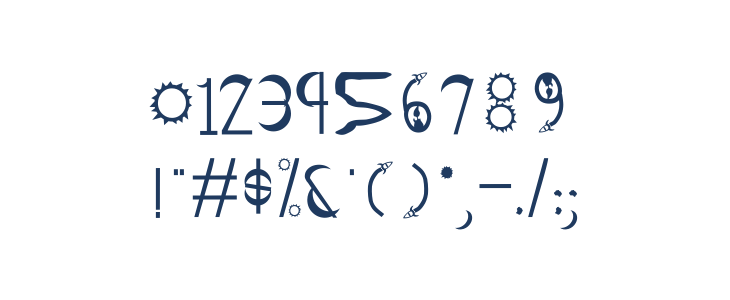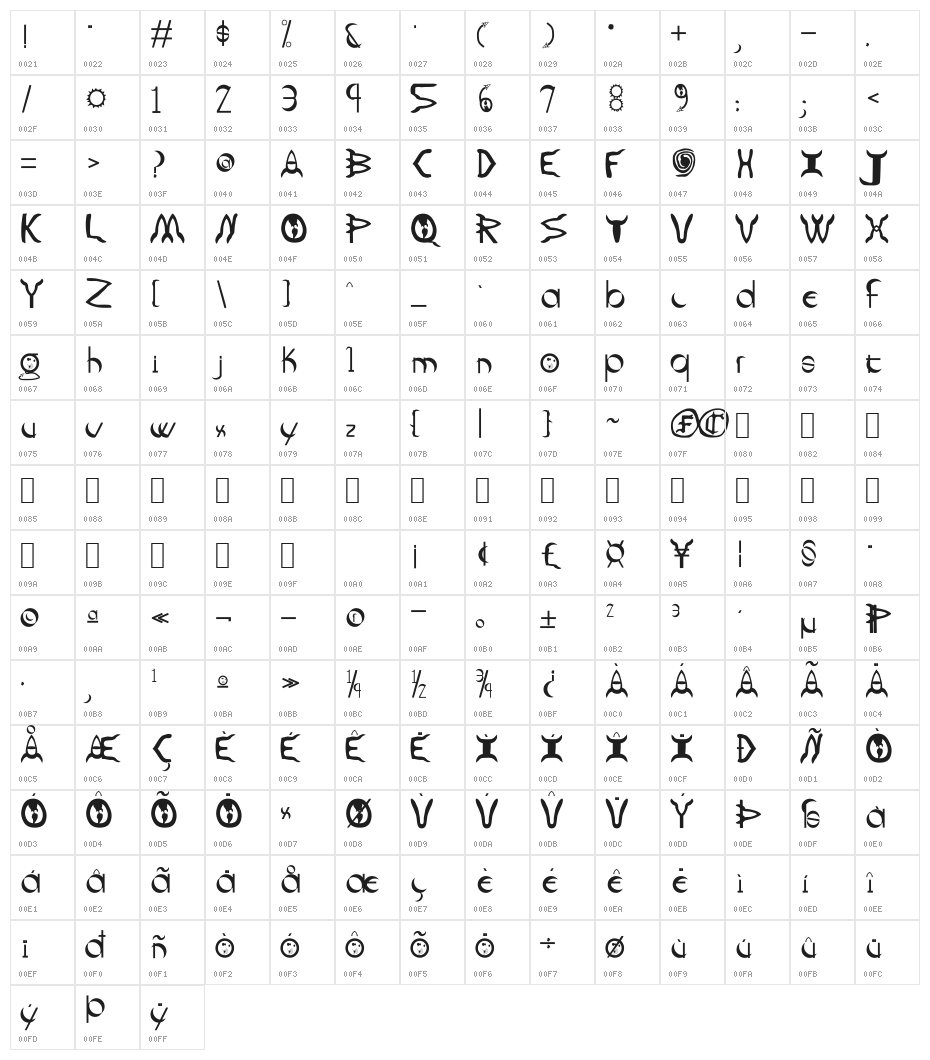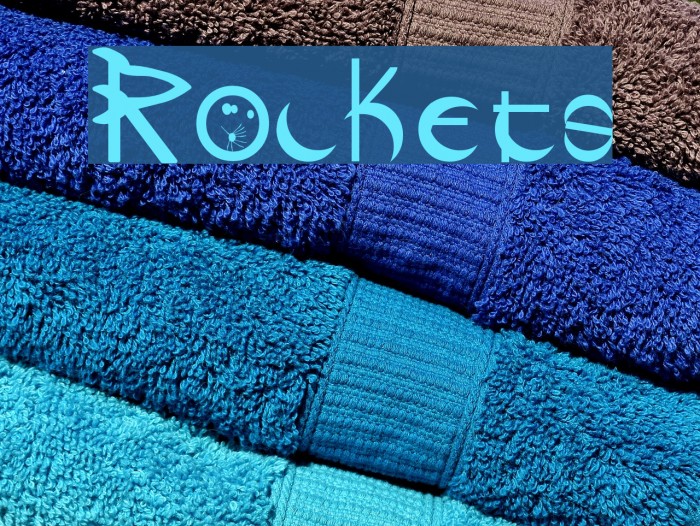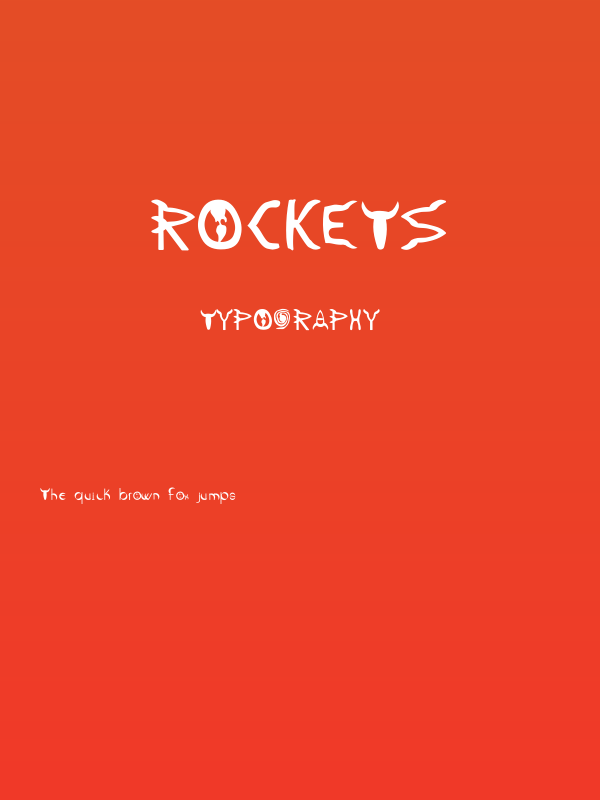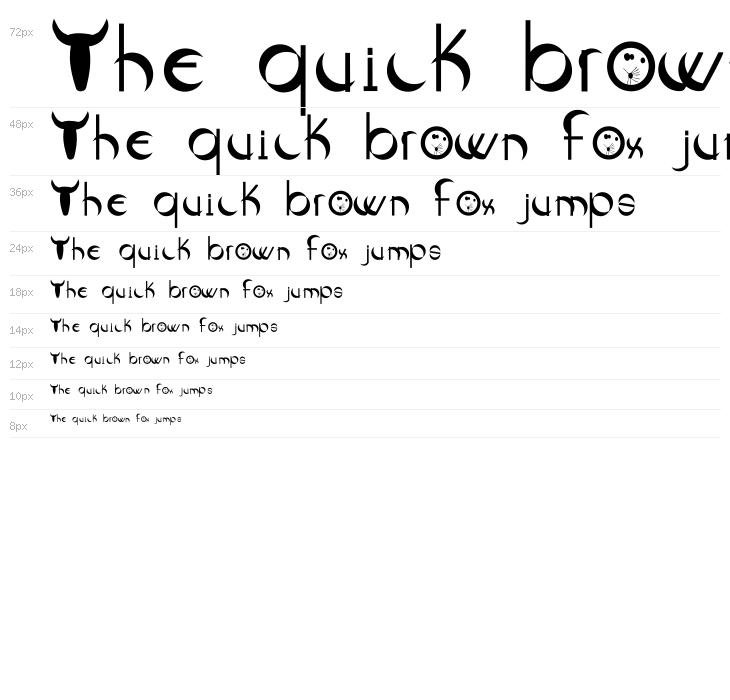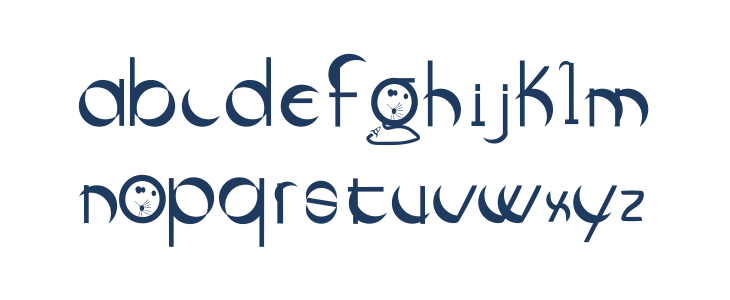
Rockets Font
Rockets Description
This font features a playful and whimsical design, incorporating space-themed elements such as rockets and planets into the characters. The uppercase letters have a bold and dynamic appearance, with unique embellishments that give each letter a distinct personality. The lowercase letters continue this theme, maintaining a consistent style that is both fun and engaging. Numbers and special characters are also creatively designed, with some numbers featuring rocket motifs and others incorporating celestial imagery. The overall design is imaginative and ideal for projects that require a touch of creativity and fun.
| Proposed Projects | Ideal for children's books, space-themed event posters, playful branding, and educational materials. |